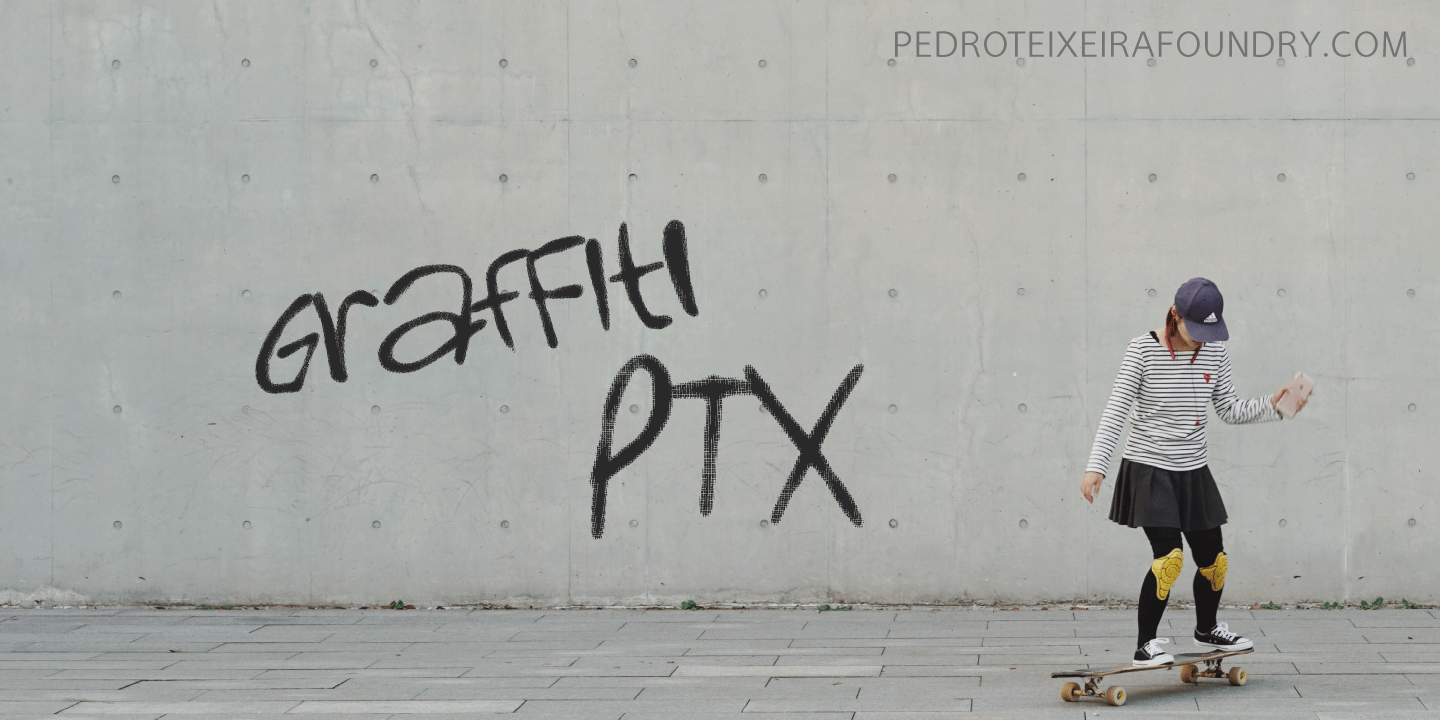
Graffiti PTx Font is perfect for urban streetwear branding, hip-hop artist logos, street art exhibitions, underground music posters, youth culture graphics, rebellious fashion designs, skateboard graphics, and edgy designs that require authentic street art credibility and urban expression.
This font is exciting because it channels the raw creative energy of street culture through its bold, spray-painted letterforms that capture the rebellious spirit and artistic freedom of underground graffiti movements. The dynamic character design embodies the authenticity of urban expression and subcultural identity, making it perfect for brands connecting with street culture and youth demographics.
Graffiti PTx Font belongs to the urban display font family, featuring street art styling and graffiti elements that enhance its credibility for hip-hop culture and underground design applications.
Whether you're creating street culture branding or underground artistic graphics, Graffiti PTx Font Free Download delivers maximum urban impact and street authenticity. This typeface represents the evolution of graffiti art into mainstream design, combining subcultural credibility with professional functionality for commercial applications. The font's powerful presence excels in brand identities, promotional materials, and street-inspired communications, providing strong readability while maintaining its rebellious character that transforms any design with urban energy and establishes authentic street credibility across all media platforms and youth culture communications.